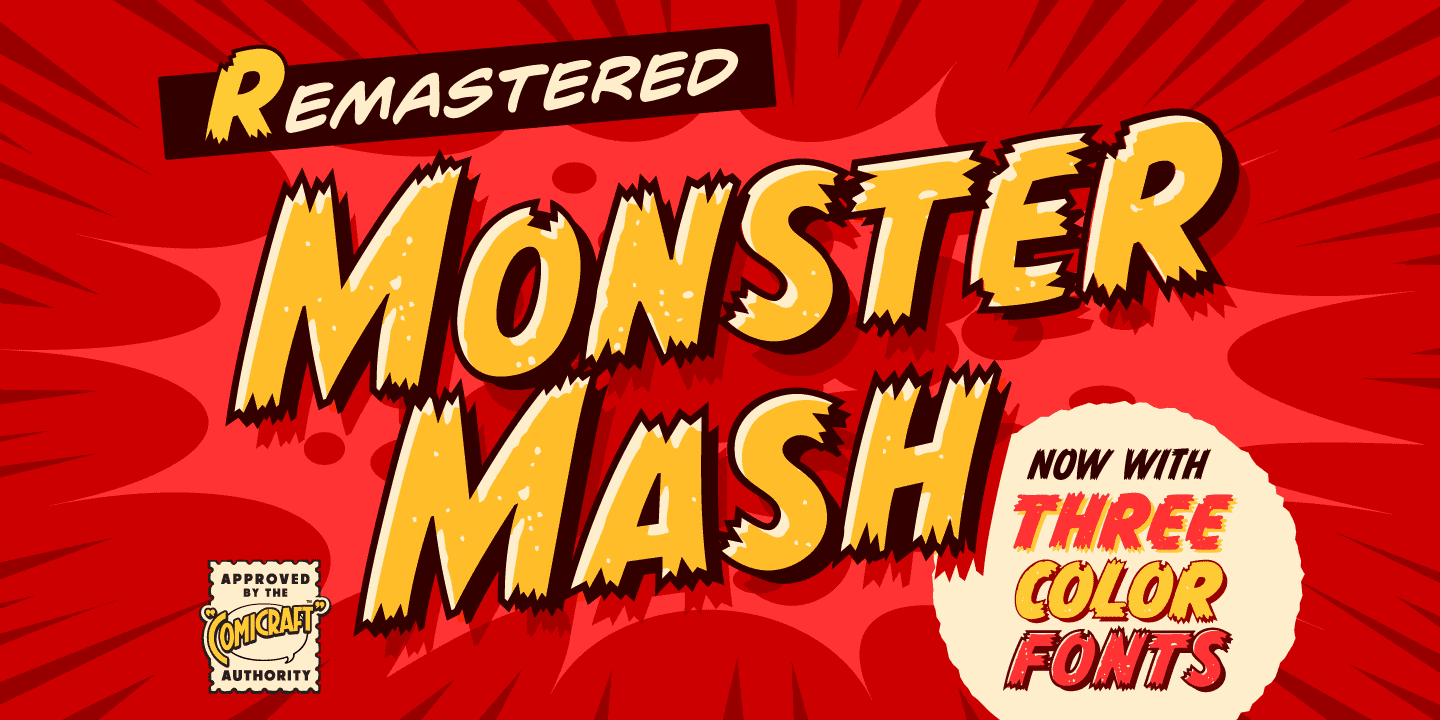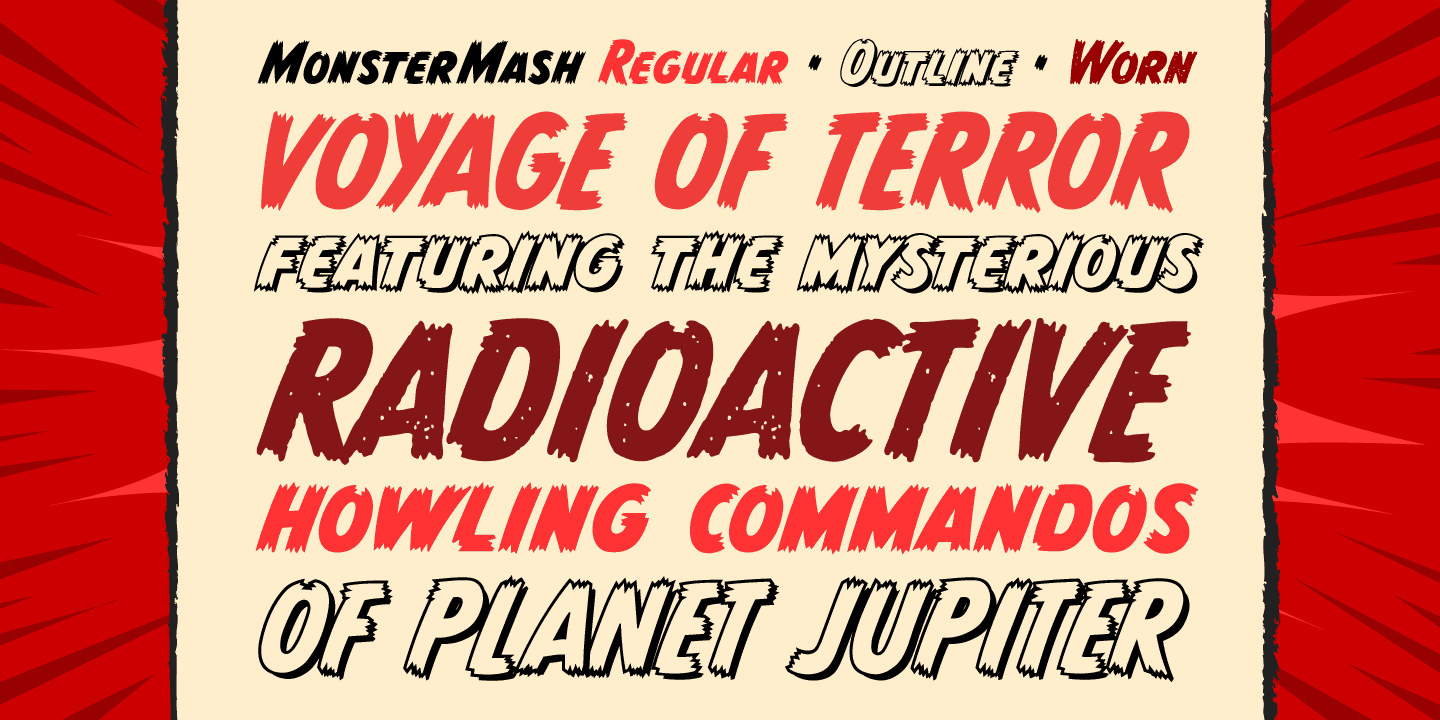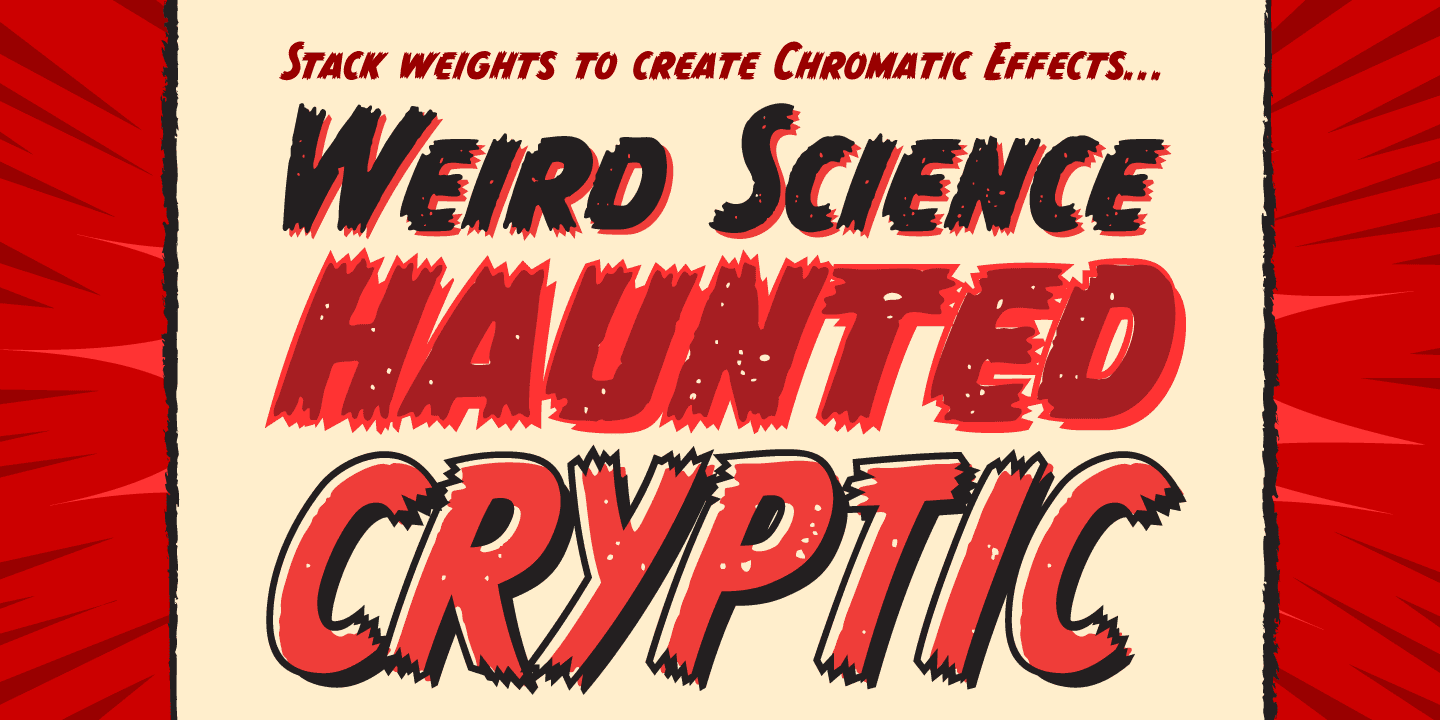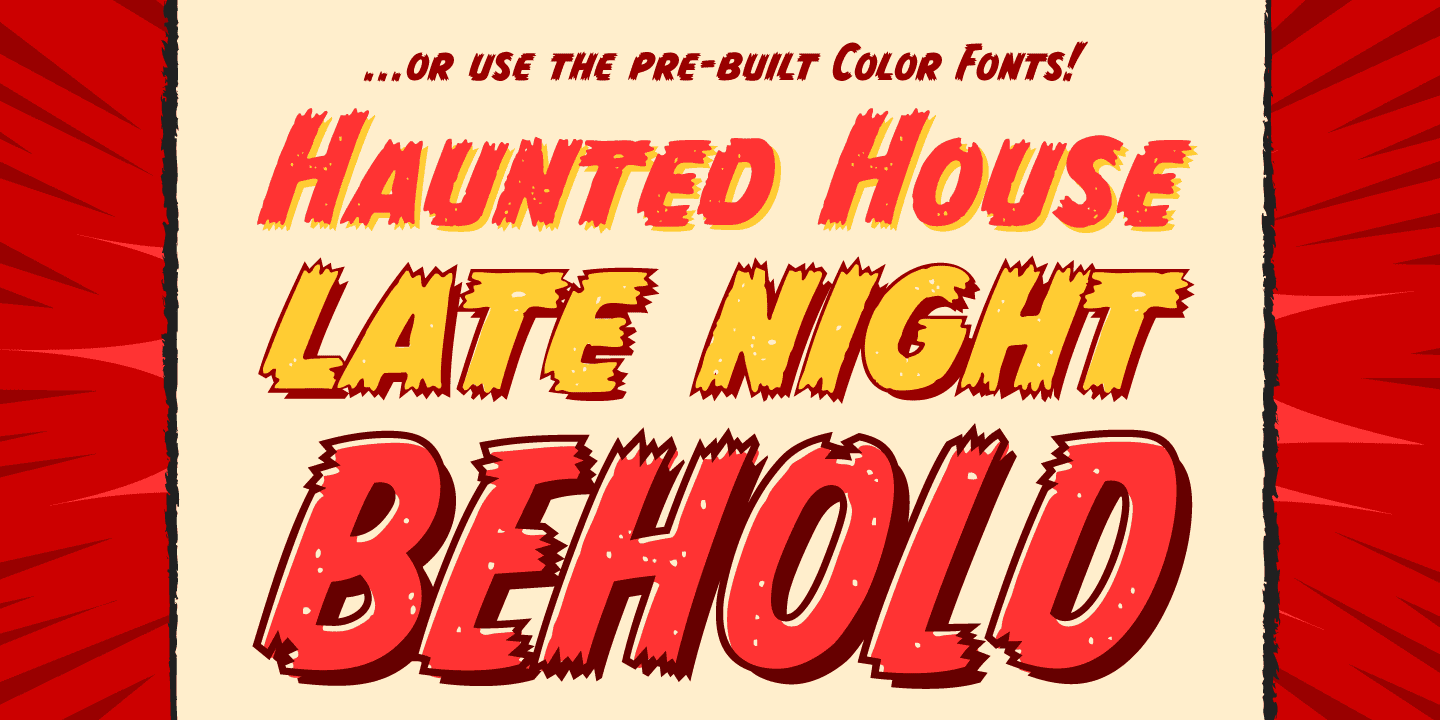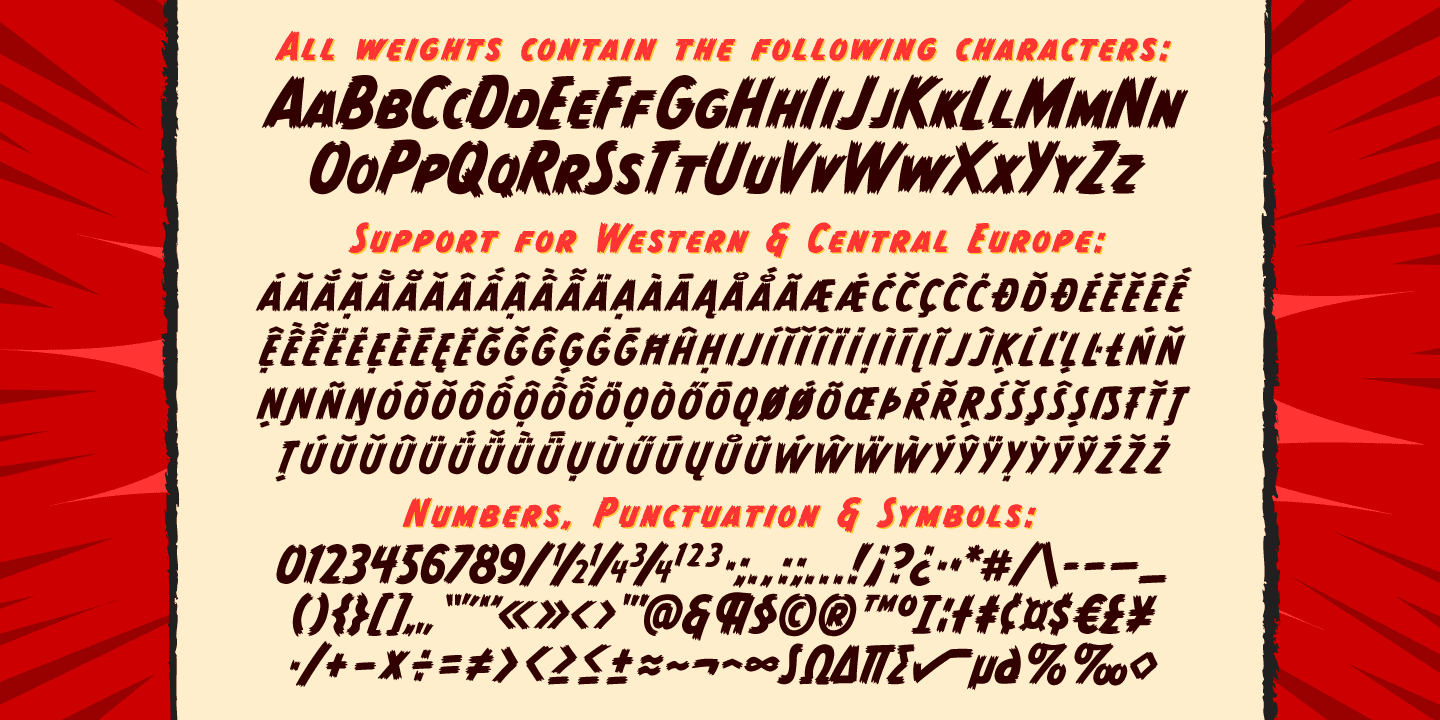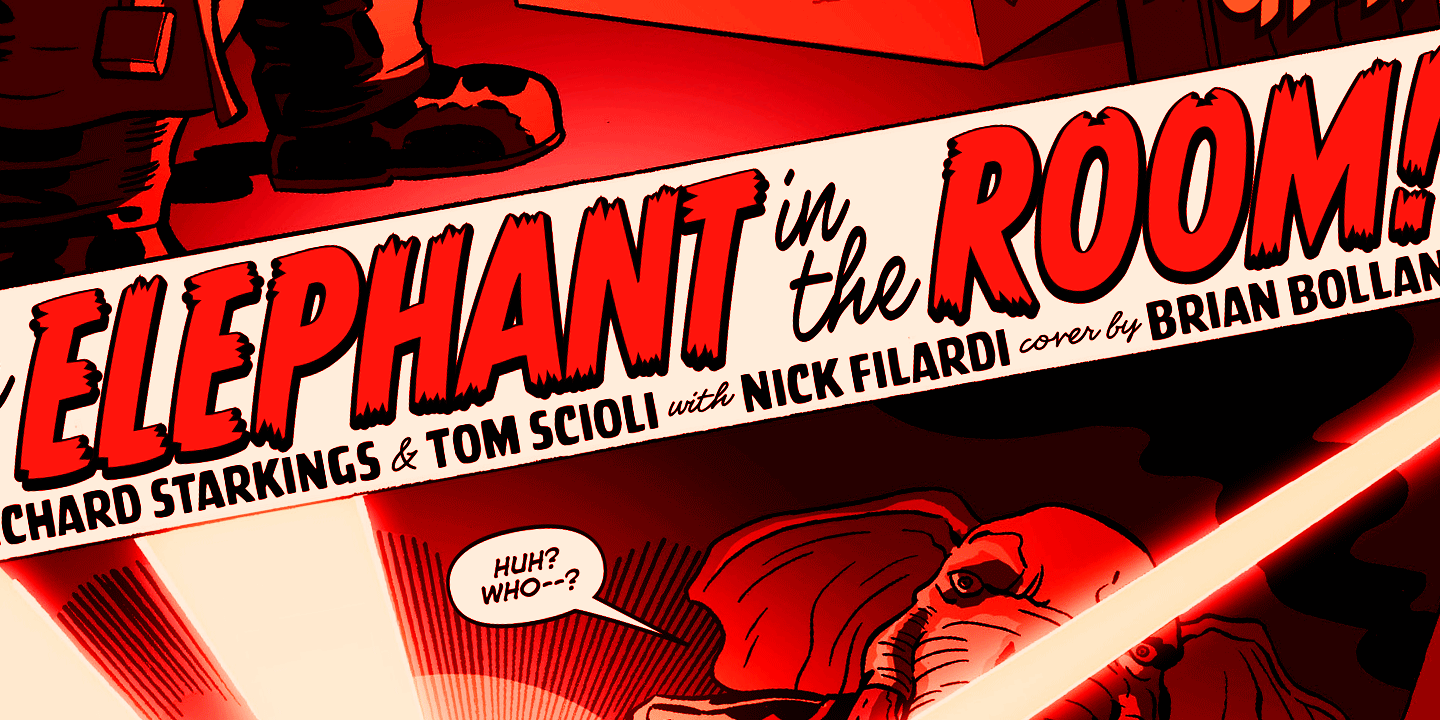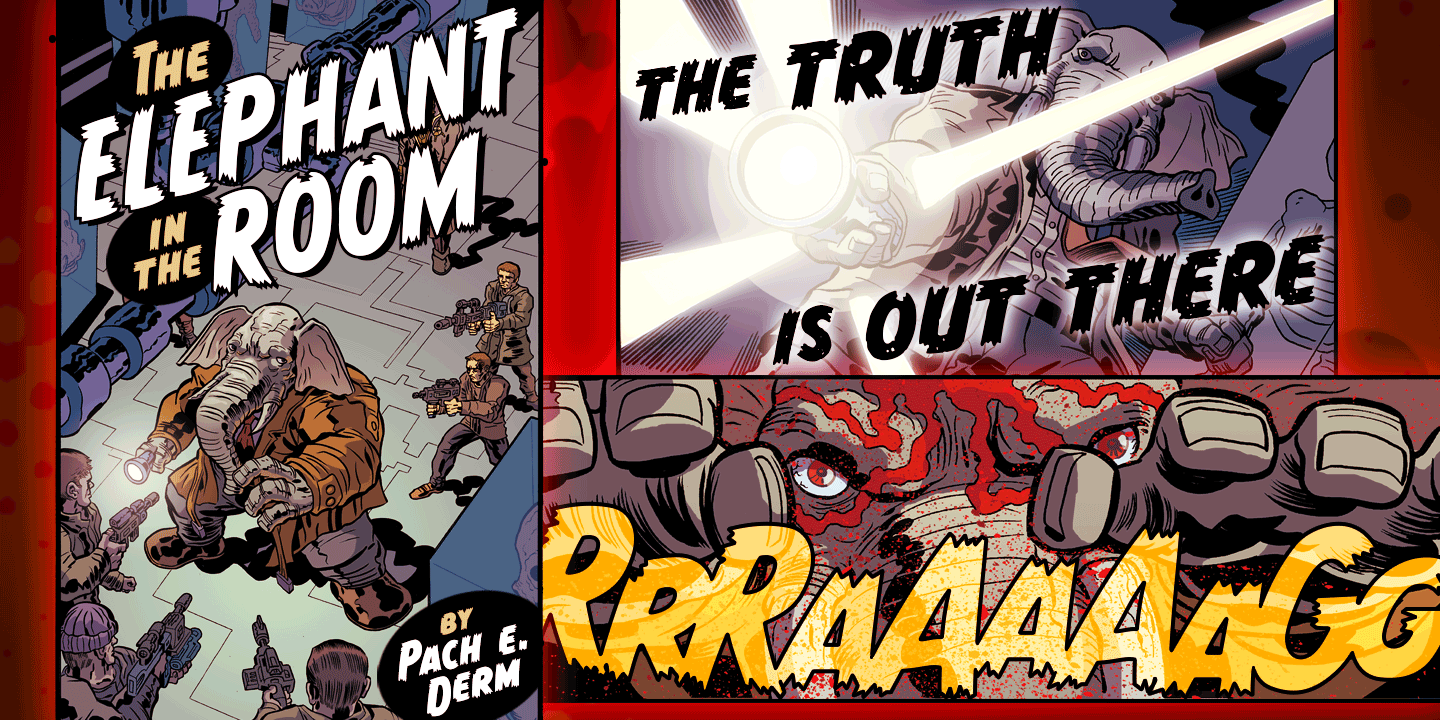
Monster Mash
Font Family by Comicraft Fonts
While working on our Macs late at night, Our Eyes beheld an Eerie Type. It’s called The Mash! It’s called MONSTER MASH!